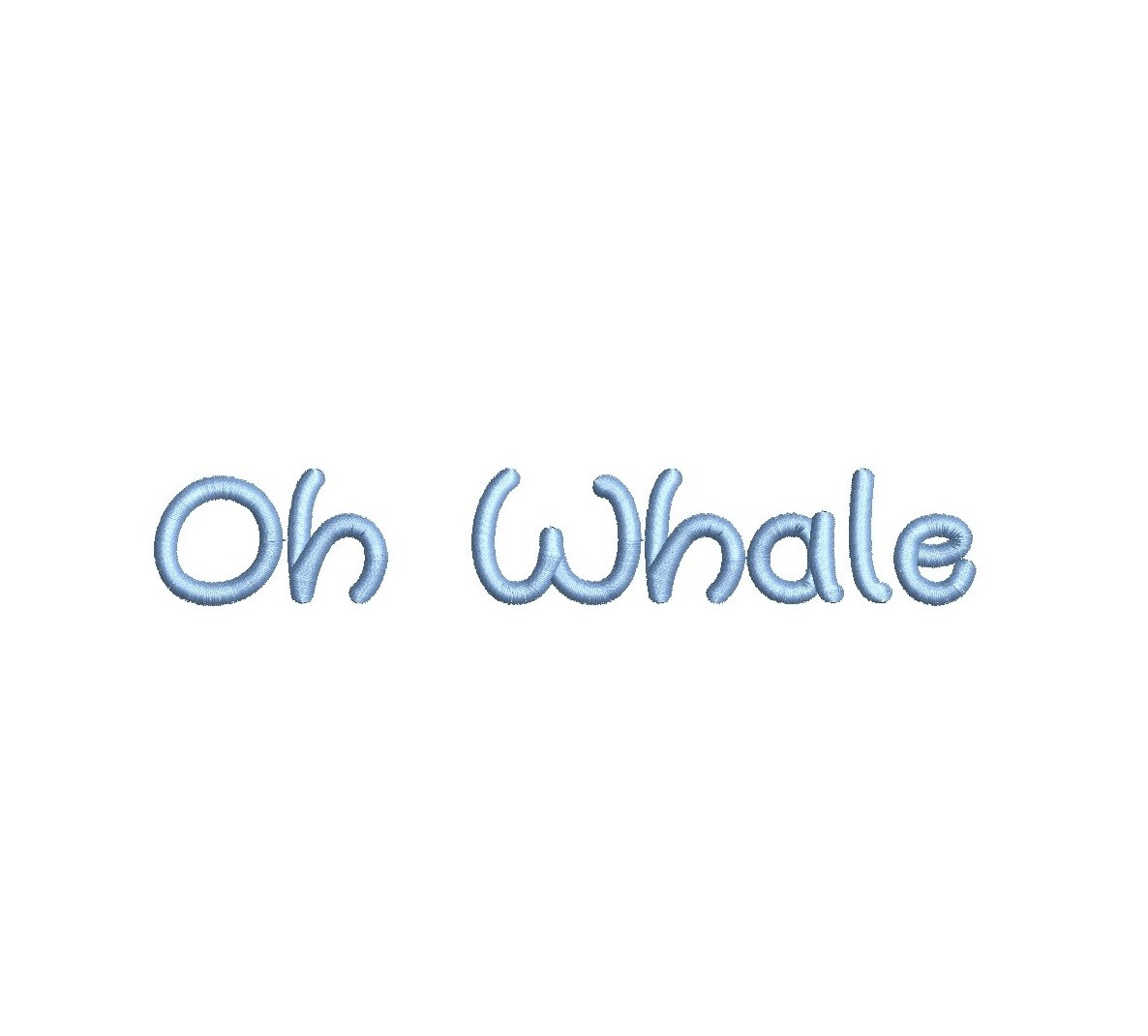
Embrace creativity with Oh Whale Regular ESA, the ultimate font for your embroidery masterpieces! This captivating font is fully compatible with popular software like Wilcom Studio e4.5.6 and Hatch 3 versions and up, ensuring a seamless design experience. Elevate your projects with its elegant and charming style, adding a touch of sophistication to every stitch. Oh Whale's smooth detailing guarantees flawless embroidery results, making it a must-have for any embroidery enthusiast. Unlock endless possibilities and transform your designs effortlessly with this versatile font. Dive into a world of creativity and bring your embroidery visions to life!